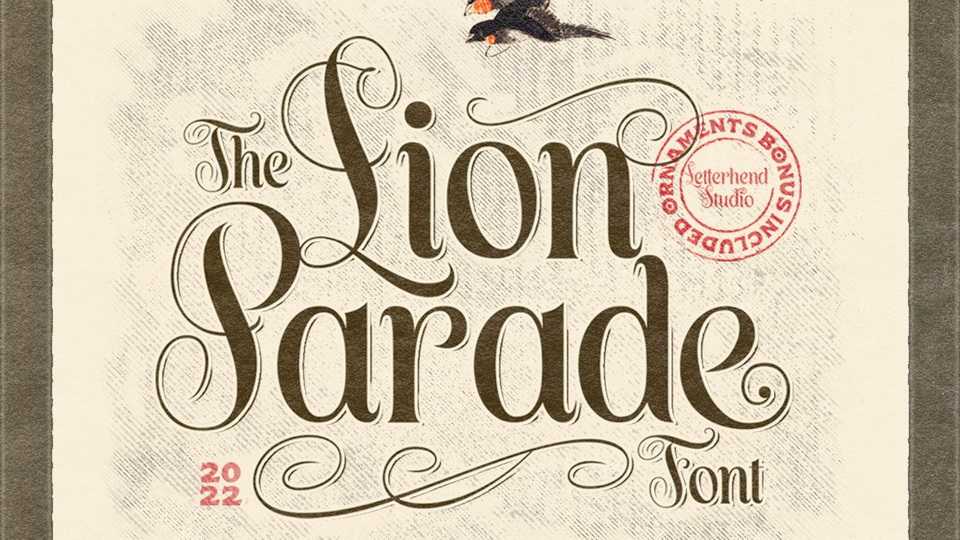
Download Lion Parade font, a unique and classic display typeface with beautiful swashes. Lion Parade is perfect for logo and other various formal forms such as invitations, labels, logos, magazines, books, greeting and wedding cards, packaging, fashion, make up, stationery, novels or any type of advertising purpose.